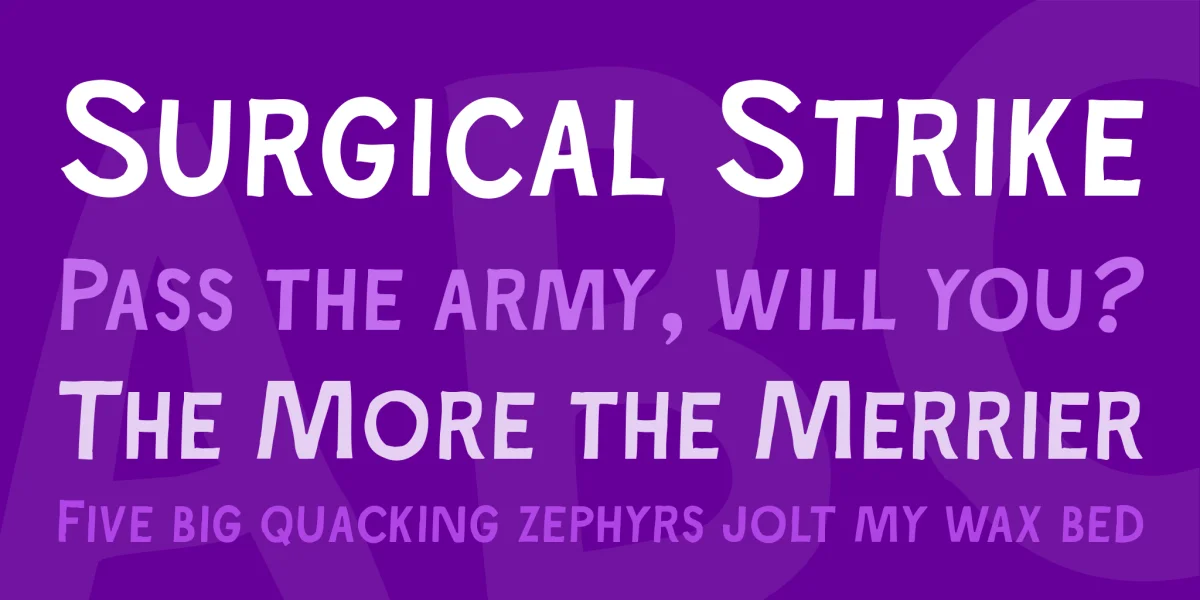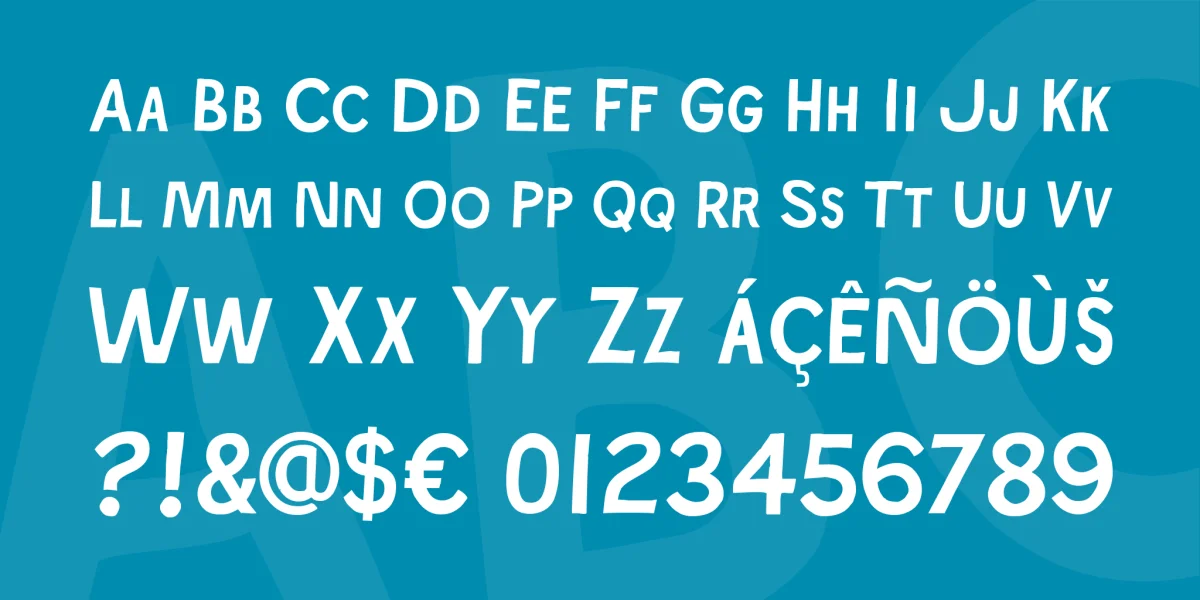
The Ray Johnson font was inspired by the Father of Mail Art (or the Grandfather, depending on who you read). It is based on the block lettering style used by Ray to add the names of his correspondents to their bunny head portraits (the film ‘How to Draw a Bunny’ is a superb introduction). The font includes blank bunny heads and other Ray Johnson graphics as scalable vector images, and separate bitmap images are also provided as jpegs and gifs.